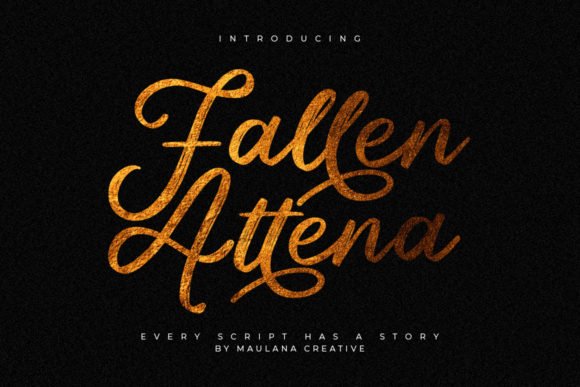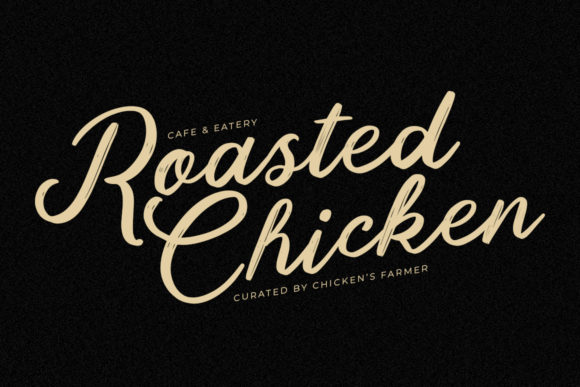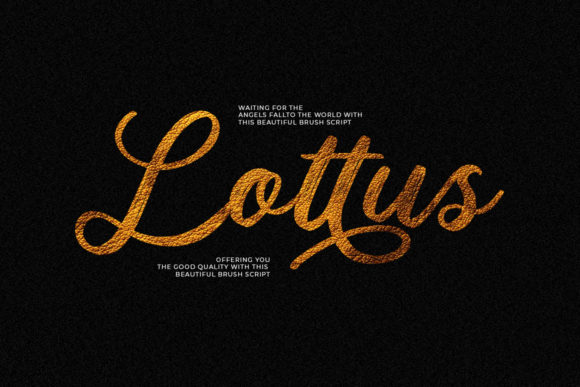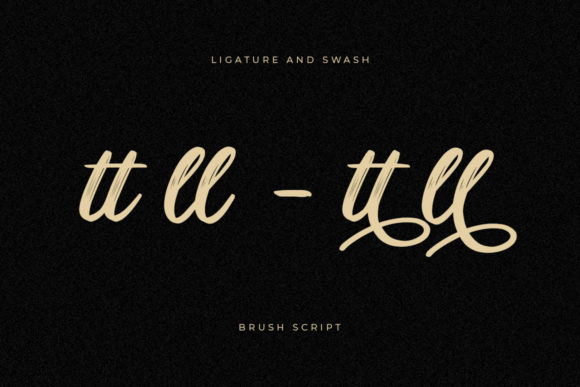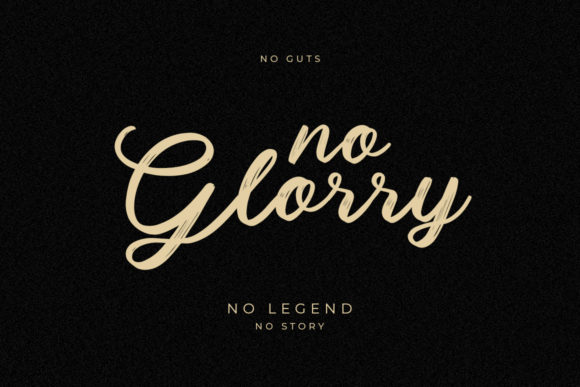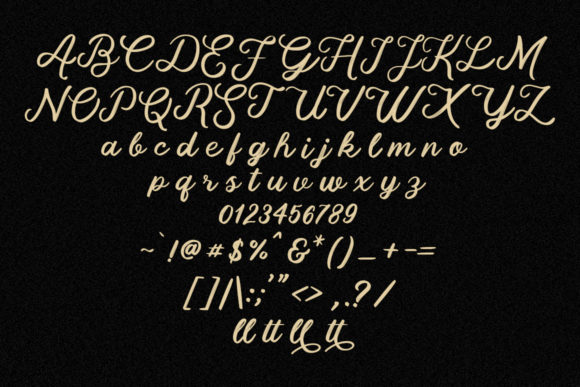
Discovering the Perfect Script: Fallen Attena Font
There’s nothing quite like the thrill of discovering a new font that elevates your designs to the next level. For me, it was a late-night design session, pouring over typography resources and scrolling through endless font collections, when I stumbled upon Fallen Attena Font. Its elegant script style and timeless classic calligraphy instantly caught my eye, and I knew I had to learn more.
Fallen Attena Font is a beautiful script font designed to bring a touch of sophistication and style to any project. With its balanced and varied form, it’s perfect for designers looking to add a personal touch to their work. Whether you’re working on a branding project, creating a wedding invitation, or designing a digital product, Fallen Attena Font is sure to impress.
Fallen Attena Font Key Features
- Font Family: Fallen Attena
- Font Styles: Regular, Italic, Bold, Bold Italic
- Unique Characteristics: Elegant, cursive script with a vintage feel and subtle flair, suitable for invitations, quotes, and other creative projects
Designer Review: Fallen Attena Font
At first glance, the Fallen Attena font seems like a beautiful, elegant addition to any design. ✨ I love the way it curves and flows, creating a sense of sophistication and refinement. The font is perfect for creating a sense of luxury and high-end style, making it ideal for fashion, beauty, or high-end branding projects.
One of the standout features of Fallen Attena is its versatility. ✨ It comes in a range of weights, from light to bold, allowing designers to create a wide range of visual effects and styles. The font is also highly legible, even at small sizes, making it perfect for body copy or small text.
However, there are some limitations to the font that should be considered. ⚠️ For one, the font may be too ornate for some designs, making it difficult to read or overwhelming the user’s senses. Additionally, the font may not be suitable for digital applications, as it may not scale well on smaller screens.
- Highly legible, even at small sizes
- Comes in a range of weights, from light to bold
- Perfect for creating a sense of luxury and high-end style
- May be too ornate for some designs
- May not scale well on smaller screens
Overall, I think the Fallen Attena font is a great addition to any designer’s toolkit. With its elegance and sophistication, it’s perfect for creating high-end designs that will make a lasting impression. However, it’s essential to consider the limitations and use it wisely in your designs.
Tips for Getting the Most Out of Fallen Attena Font
For the best results, use Fallen Attena font in bold or italic styles to add emphasis to your text. You can also combine it with other fonts to create a unique visual effect.
Fallen Attena font is perfect for creating dramatic and attention-grabbing headlines, titles, and captions. It’s also great for adding a touch of elegance and sophistication to your designs.
Comparison to Fallen Attena: While both fonts are elegant and sophisticated, Playfair Display has a more refined and luxurious feel, making it suitable for high-end brands. Fallen Attena, on the other hand, has a more rustic and vintage feel.
Pacifico is a beautiful, modern script font perfect for creating a relaxed and friendly atmosphere. It is ideal for branding, advertising, and packaging designs that require a touch of warmth and personality. When to use: Casual branding, advertising, and packaging designs.
Comparison to Fallen Attena: While both fonts have a similar feel, Pacifico is more modern and relaxed, while Fallen Attena has a more vintage and rustic feel. Pacifico is also more versatile and can be used in a wider range of designs.
Q: What is the recommended font size and line height for Fallen Attena?
The recommended font size for Fallen Attena is between 12pt and 24pt, depending on the desired level of legibility and visual impact. A line height of 1.2 to 1.5 times the font size is also recommended to ensure that the text is easy to read and visually appealing.